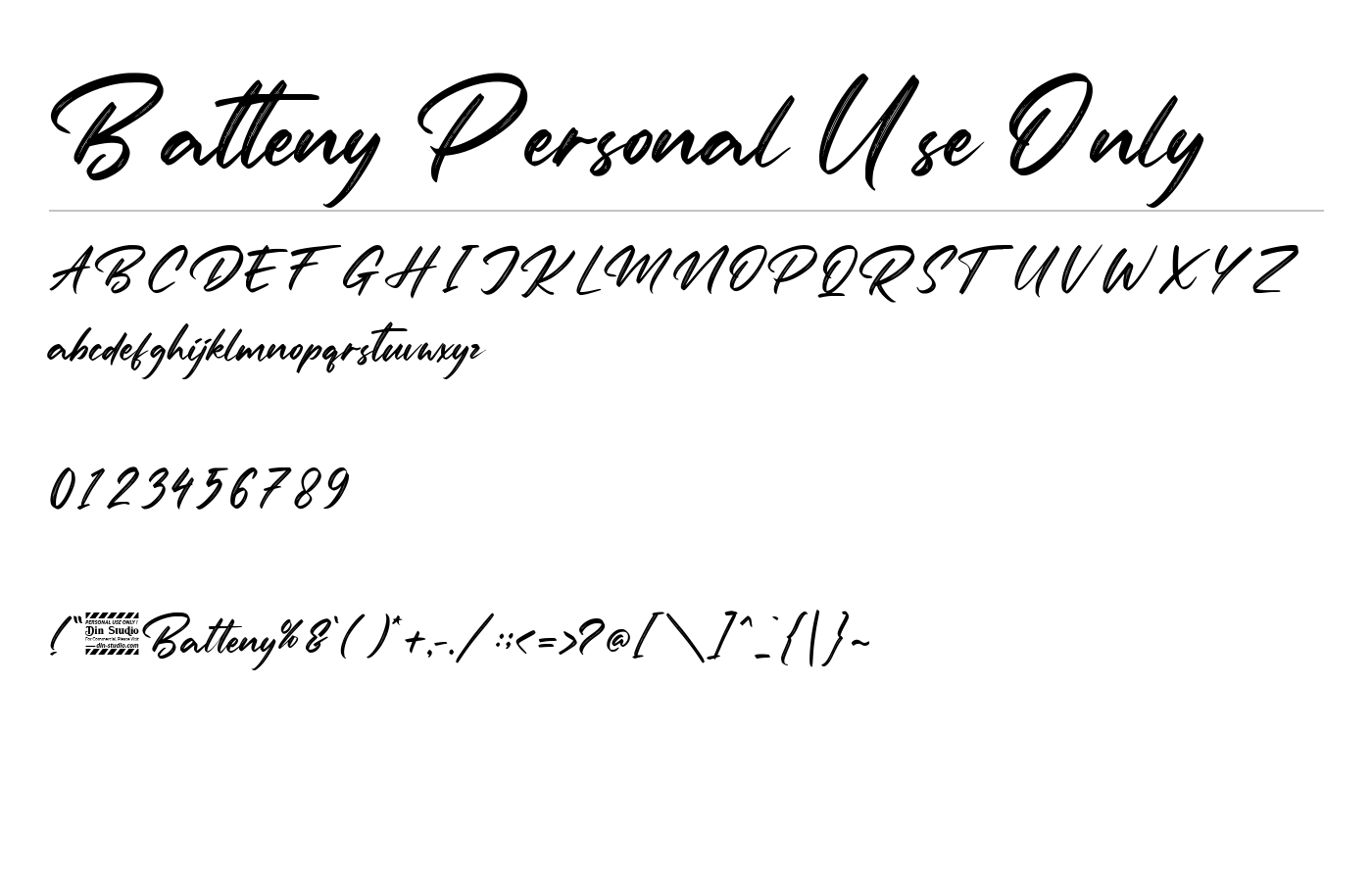
Batteny Personal Use Only is a stylish script font characterized by its flowing, hand-lettered appearance and moderate stroke contrast. Its elegant yet casual letterforms make it perfect for adding a personal, warm touch to branding, invitations, and creative projects that need a modern handwritten feel. This font works best in headlines, logos, and decorative text where a charming, approachable style is desired.
Batteny Personal Use Only Font
About Batteny Personal Use Only Font
| Font family | Batteny Personal Use Only Font |